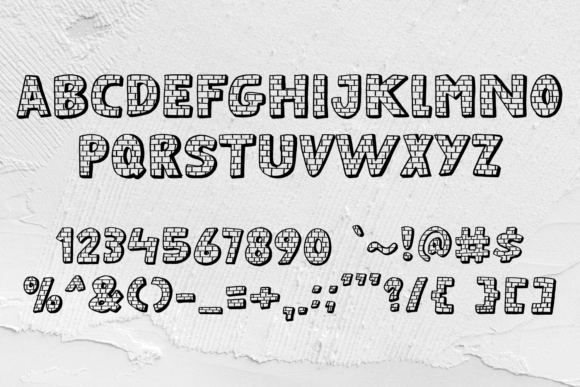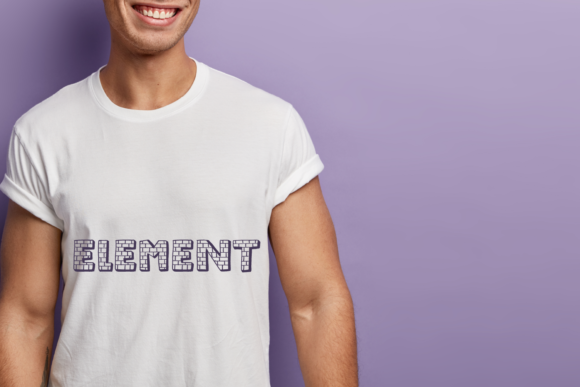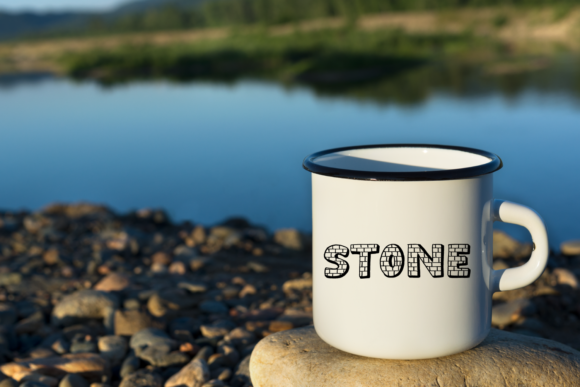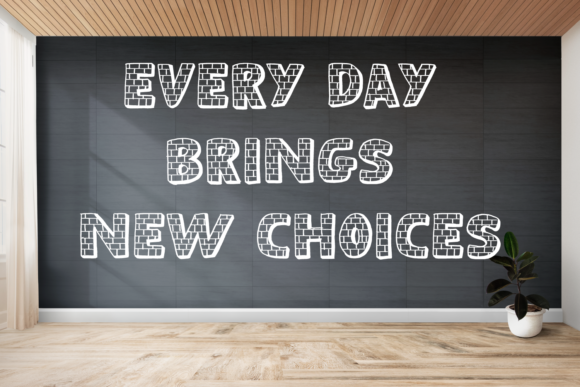
The Ultimate Font for Fun and Playful Designs: Brick Boom Font
I’ll never forget the time I was working on a project for a children’s book, and I just couldn’t find the right font to bring the story to life. The client wanted something bold, fun, and engaging, but everything I tried seemed either too boring or too over-the-top. That’s when I stumbled upon Brick Boom Font, and let me tell you, it was love at first sight! 💕
Whether you’re a designer, crafter, or creative hobbyist, if you’re looking for a font that adds a touch of joy to your project, you’re in the right place. In this article, we’ll dive into the world of Brick Boom Font, exploring its features, how to use it, and some similar fonts you might love.
An Honest Review of Brick Boom Font
- ✅ Bold and playful: Brick Boom Font is perfect for making a statement with your designs.
- ✅ Highly versatile: Use it for cartoon-related designs, children games, quotes, titles, brand names, book covers, posters, and more.
- ✅ Easy to read: Despite its boldness, the font remains clear and legible, even at smaller sizes.
- ✅ Unique personality: Brick Boom Font has a distinct charm that sets it apart from other decorative fonts.
While Brick Boom Font is amazing, it’s not perfect. Here are a few things to keep in mind:
- 🤔 Limited use cases for formal designs: This font is bold and playful, so it might not be the best fit for very formal or professional projects.
- 🤔 May not work well with smaller text: While it’s legible, Brick Boom Font is designed to make a statement, so it might not be the best choice for body text or smaller captions.
The Backstory of Brick Boom Font
Brick Boom Font was designed with one goal in mind: to bring a touch of joy and playfulness to the world of typography. Its creator, a talented designer with a passion for fun and quirky fonts, wanted to craft a font that would make designers and their clients smile. And, let’s be honest, who doesn’t love a good brick-themed pun? 😄
Q: What type of projects is Brick Boom Font best suited for?
A: Brick Boom Font is perfect for cartoon-related designs, children games, quotes, titles, brand names, book covers, posters, and any other project that requires a touch of fun and playfulness.
Q: Is Brick Boom Font easy to read?
A: Yes, despite its boldness, Brick Boom Font remains clear and legible, even at smaller sizes.